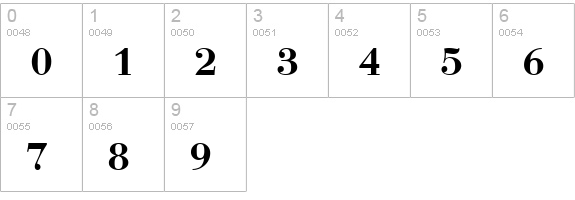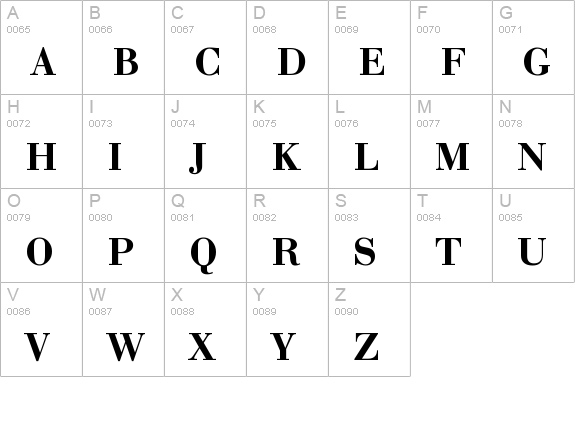
QTBodini Bold Font Details
QTBodini Bold is a strong, high-contrast variant in the QTBodini typeface family \xE2\x80\x94 well suited to headlines, attention-grabbing titles, and strong calls-to-action.
QTBodini Bold is a powerful and captivating font that exudes confidence and elegance with its bold and distinct design. This font is the perfect choice for those who want to make a bold statement and leave a lasting impression. Its strong and assertive letterforms demand attention and effortlessly draw the eye to any piece of text. With its sturdy and impactful appearance, QTBodini Bold is ideal for headlines, titles, and branding materials. Whether you're designing a logo, creating eye-catching posters, or crafting engaging social media graphics, this font will undoubtedly make your message stand out from the crowd. One of the most remarkable aspects of QTBodini Bold is that it is freely available to download at FontsMarket.com. This means that you can effortlessly access this exceptional font and incorporate it into your design projects without any hassle. Enjoy the freedom to explore and experiment with the versatility of QTBodini Bold, knowing that it is easily accessible and ready to elevate your designs to new heights. Not only does QTBodini Bold possess a striking visual impact, but it also offers excellent legibility and readability. Its well-defined letterforms ensure that your message is conveyed clearly and effectively, even at smaller sizes. This makes it a versatile choice for a wide range of applications, from print materials to digital interfaces. The attention to detail in QTBodini Bold is truly remarkable, with each letter meticulously crafted to create a harmonious and balanced composition. The bold strokes and precise curves create a sense of strength and stability, while the subtle variations in thickness add depth and dimension to your text. Whether you're a professional designer, an aspiring artist, or simply someone looking to add a touch of sophistication to their creative projects, QTBodini Bold is a font that will undoubtedly exceed your expectations. Its timeless appeal and impressive versatility will allow you to bring your visions to life with confidence and style. So, why wait? Experience the power and beauty of QTBodini Bold for yourself by downloading it for free at FontsMarket.com. Unleash your creativity and elevate your designs with this exceptional font that is sure to make a lasting impression.